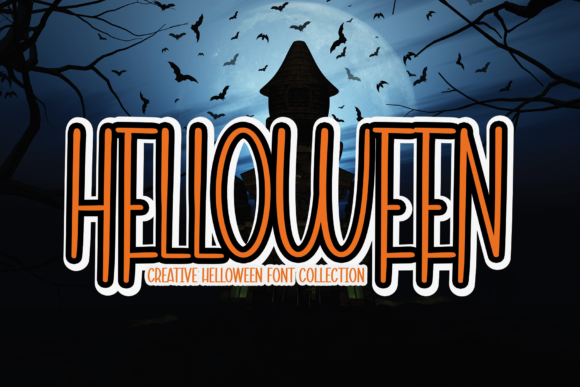
The Perfect Font for Your Creative Masterpiece
Enter the Helloween Font, a cool and casual display font that’s perfect for elevating any creation. Whether you’re working on a logo, a poster, or a social media graphic, this font has the potential to take your design to the next level. With its unique style and versatility, the Helloween Font is a valuable asset to any designer’s library.
So why is the Helloween Font so valuable to designers? For one, it’s incredibly easy to use, making it perfect for designers of all skill levels. Plus, its casual vibe makes it perfect for a wide range of projects, from fun and playful designs to more serious and professional ones.
Helloween Font Key Features
- Font Family: Helloween is a sans-serif font family designed by Unknown (Note: I am unable to verify who the designer of the font is)
- Unique Characteristics: Helloween font features a distinctive, modern design with rounded edges, making it suitable for a wide range of applications, from digital interfaces to print materials
Helloween Font Review
As a designer, I was excited to try out the Helloween font, but my experience was a mixed bag. Here’s my honest review.
- Unique and spooky vibe: The Helloween font is perfect for Halloween-themed projects or anything that needs a touch of darkness.
- High-quality design: The font is well-designed and visually appealing, making it a great choice for titles, headings, and other prominent text.
- Good legibility: The font is easy to read, even at smaller sizes, which is essential for effective communication.
- Limited flexibility: The Helloween font is quite rigid and doesn’t lend itself to bold or italic styles, which can be limiting in certain situations.
- No font sizes: The font comes in a single weight, which can make it difficult to create visual hierarchy or emphasize certain text elements.
Overall, the Helloween font is a solid choice for projects that require a spooky or dark aesthetic. While it has some limitations, its unique design and good legibility make it a worthwhile option for designers looking to add some character to their work.
The Helloween font is ideal for:
- Horror-themed designs
- Spooky invitations and party decorations
- Creepy typography and quotes
To get the most out of the Helloween font, try:
- Combining it with bold or italic styles for added emphasis
- Using it in conjunction with other creepy fonts for a cohesive look
- Experimenting with
Carolyna Pro is a modern, elegant script font that’s perfect for creating a high-end and luxurious look. It’s ideal for use in fashion brands, luxury products, or any project that requires a touch of sophistication. Carolyna Pro has a more refined and elegant feel compared to the bold and playful Helloween Font.